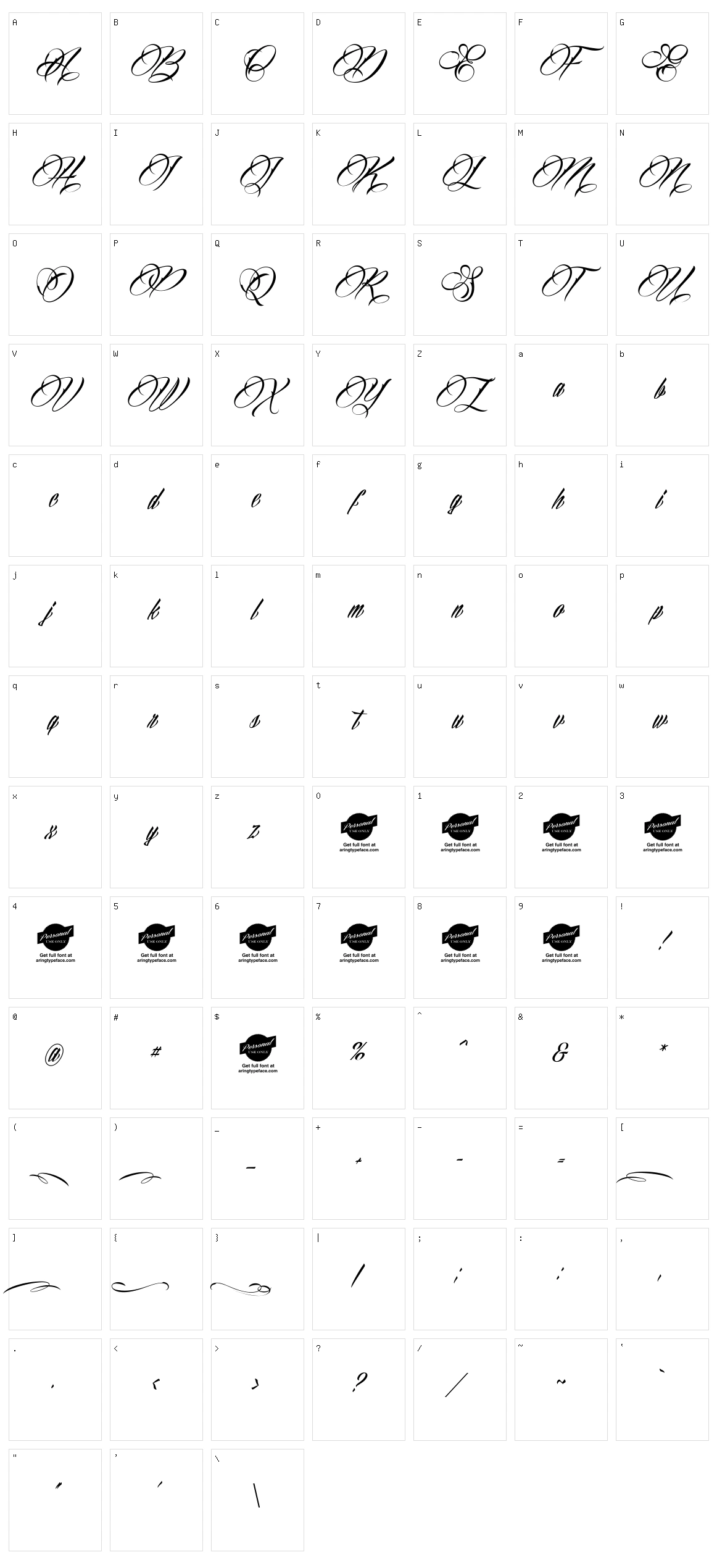
The free font Billion Stars is carefully designed by Mans Greback, showcasing a thoughtful balance of creativity and usability and falls under the Script font style. When you download the ZIP file, it contains only 1237.25 KB of font files, making it lightweight and quick to download. Please review the license details below to understand permitted usage and distribution rights. If license information is not available, we recommend using this font for personal projects only or contacting the author directly for commercial usage permissions.